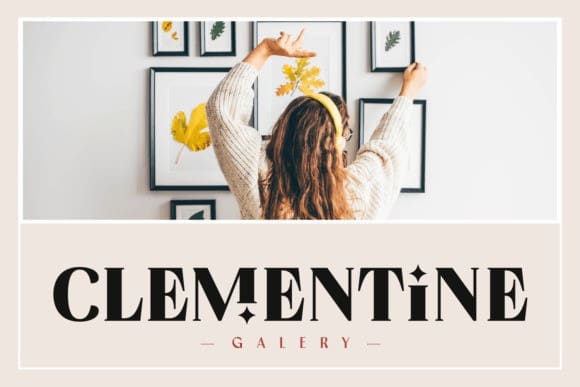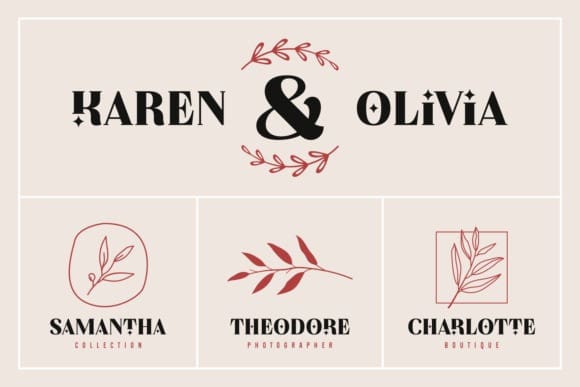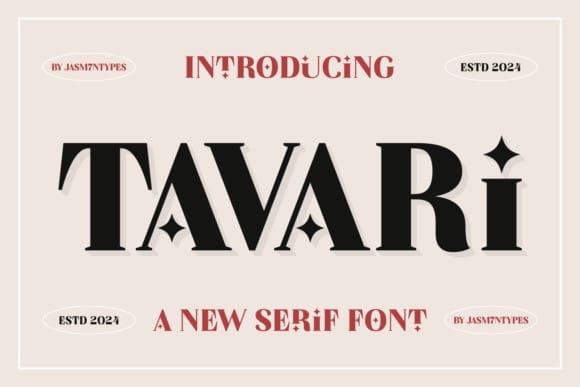
Tavari Font
Tavari Font, the perfect blend of serif, modern, and elegant elements. Flaunting a bold demeanor, this versatile font family makes a memorable accent to any brand. Originally devised for apparel and authentic visuals, Tavari Font works a charm on book covers and within the pages too, lending its charisma to branding and cards alike.
Make your cover designs stand out, impart a warm greeting with Tavari-styled cards, and give your logos a unique identity that lingers in the audience’s mind. Also excelling at packaging designs and youthful t-shirt prints, this font poses a trendy statement while incorporating seasonal vibes into a multilingual structure. Tavari’s clean calligraphy serves equally well in magazine layouts and adds a dash of chic to any quotation. This font family offers the perfect baseline regular and an expressive italic variant for versatile use. Experience grace, boldness, and modernity that’s truly Tavari Font.